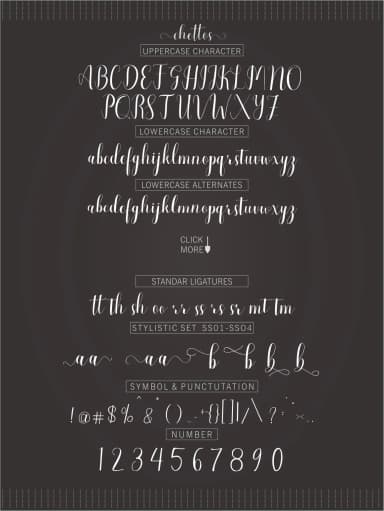
Chitos Font by joelpopon is a flowing script typeface with organic, hand-drawn letterforms that bring authentic warmth to contemporary designs. The typeface beautifully captures the spontaneity of brushwork while maintaining excellent readability across different sizes, making it equally effective for bold display work and refined typographic applications where personality matters. This versatile script excels across numerous creative projects and design contexts. Whether you're designing elegant wedding invitation suites with intricate letterwork, creating custom Etsy product labels for handmade goods, developing boutique skincare packaging that conveys artisanal care and quality, or crafting personalized DIY greeting cards and stationery sets, Chitos delivers genuine character that resonates with your audience. The font includes over 250 unique glyphs, providing extensive coverage for creative expression and nuanced letterform variations that enhance compositions without feeling overwrought or artificial. This comprehensive character set opens rich possibilities for sophisticated design outcomes and typographic exploration. The natural flow of Chitos makes it particularly suited to projects where handcrafted authenticity and visual charm matter most, from small-batch branding initiatives and product packaging to social media graphics that demand personality and genuine visual storytelling. The generous glyph collection ensures you'll find the perfect letterform variations and expressive details for your creative vision. Get Chitos Font on Creative Fabrica and bring genuine artistry to your next design project.
- Elegant, Flowing, Chitos Script
Chitos Font is a script font that shines as a display or heading face. Pair it with a clean sans-serif or serif font for body text β the contrast creates a clear hierarchy while the two styles stay balanced and easy to read.